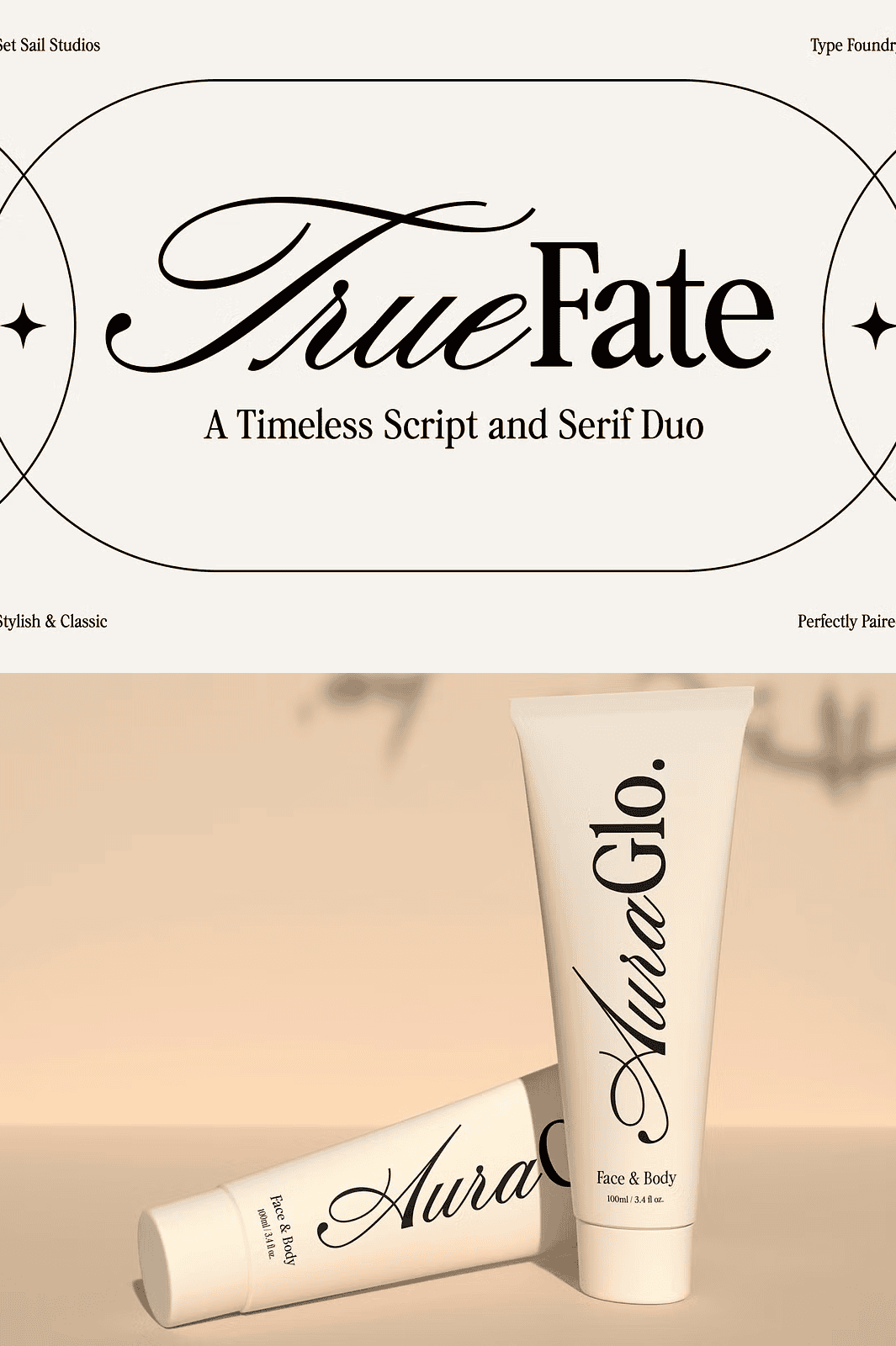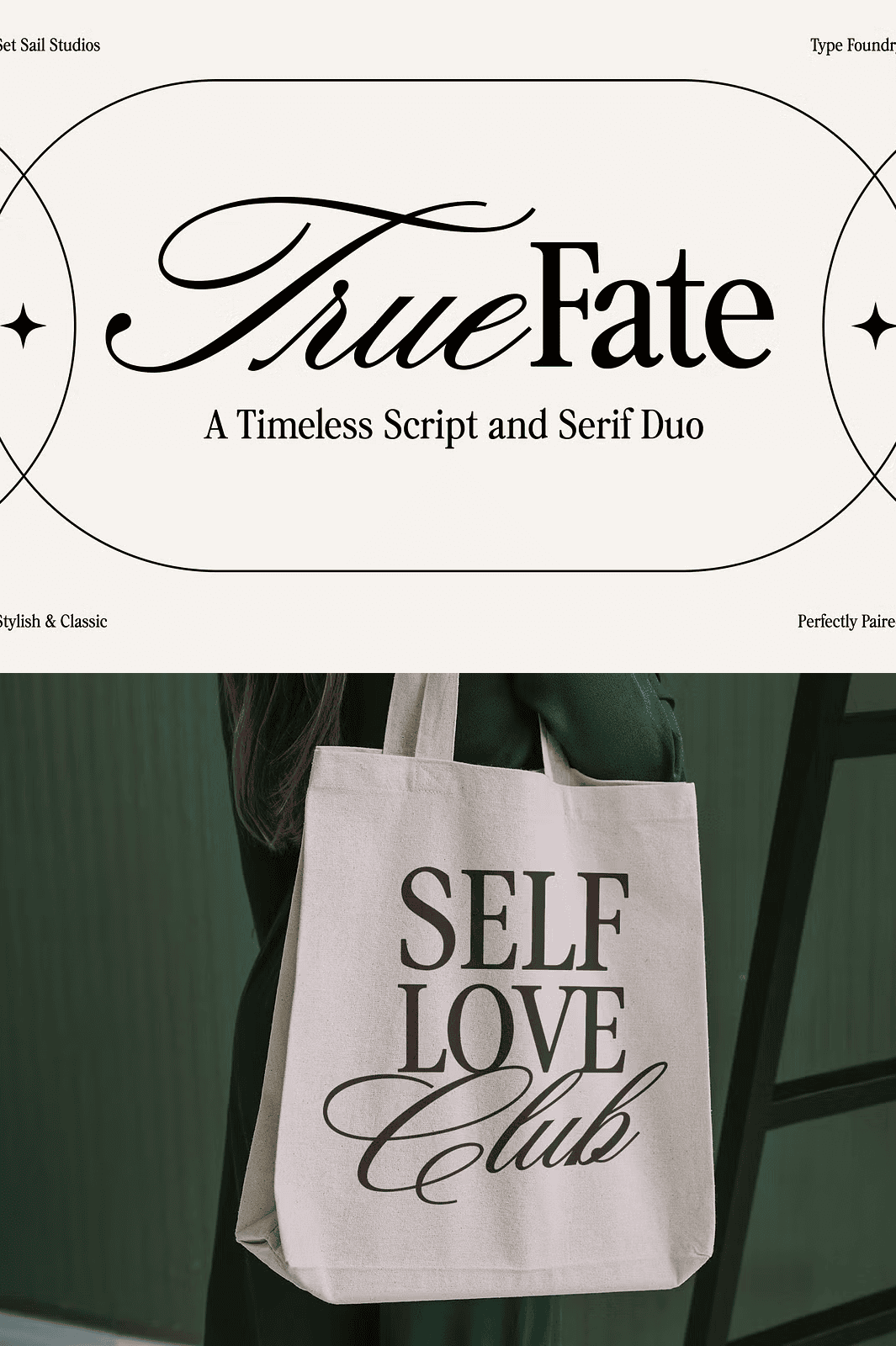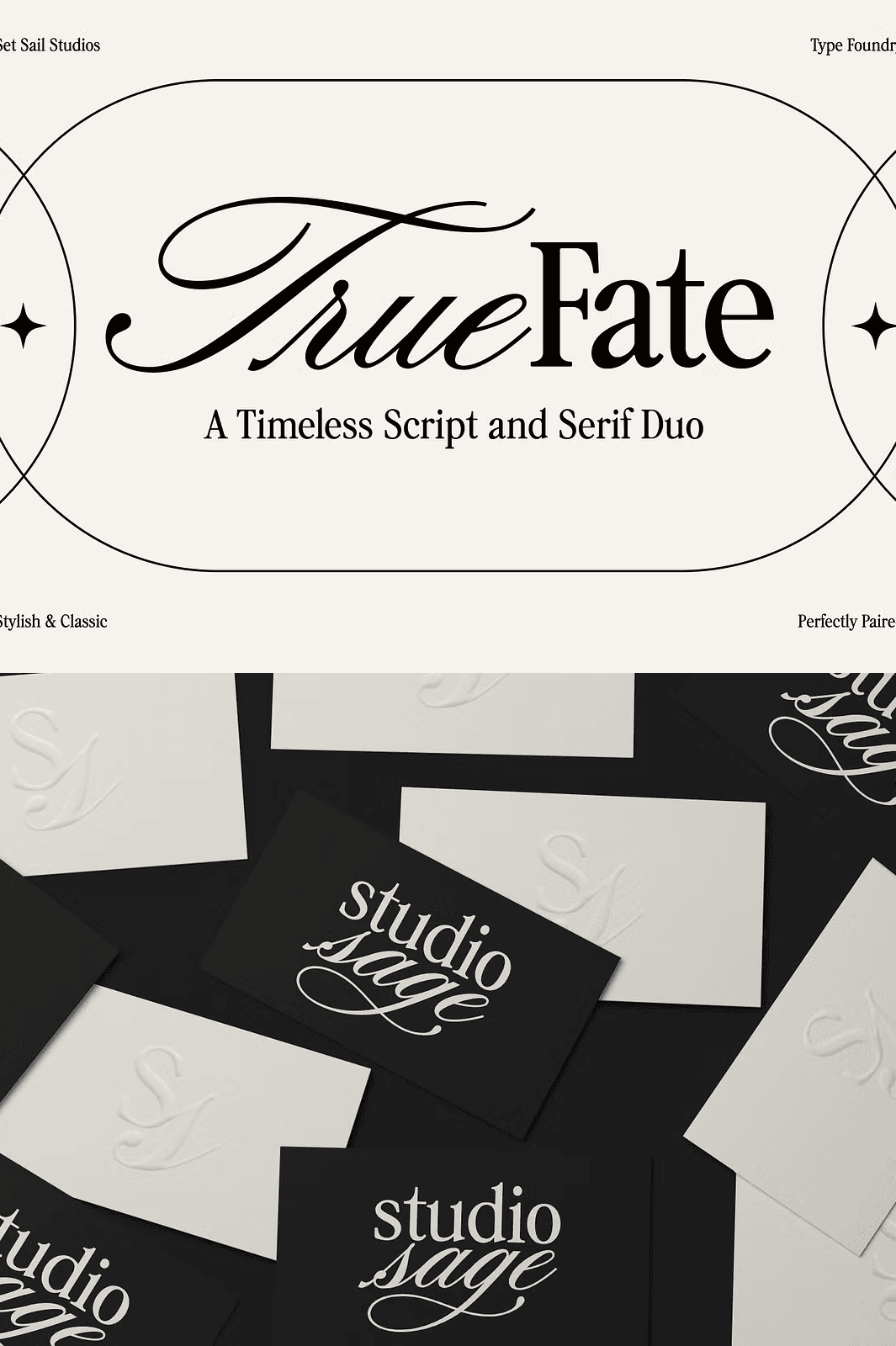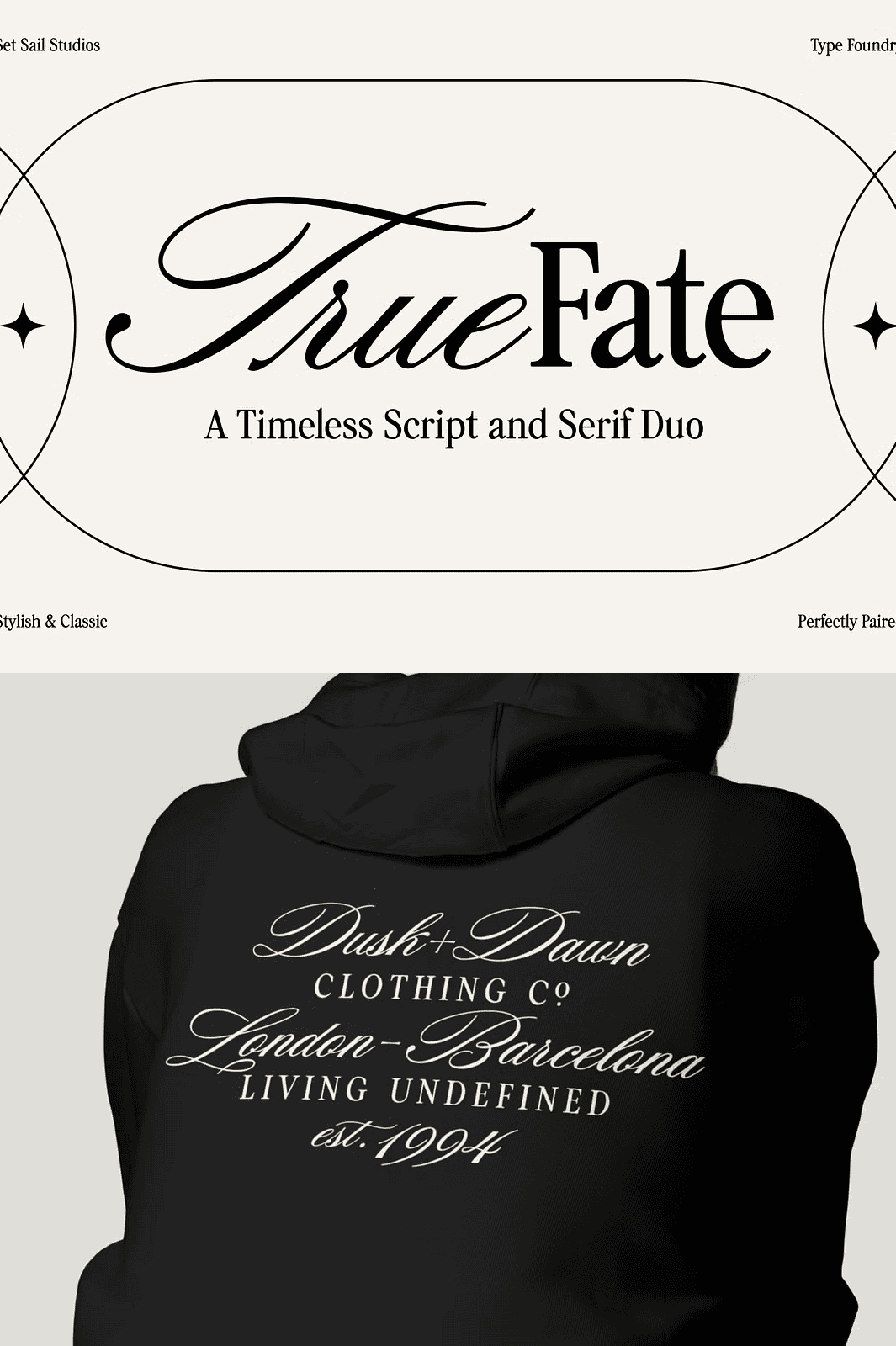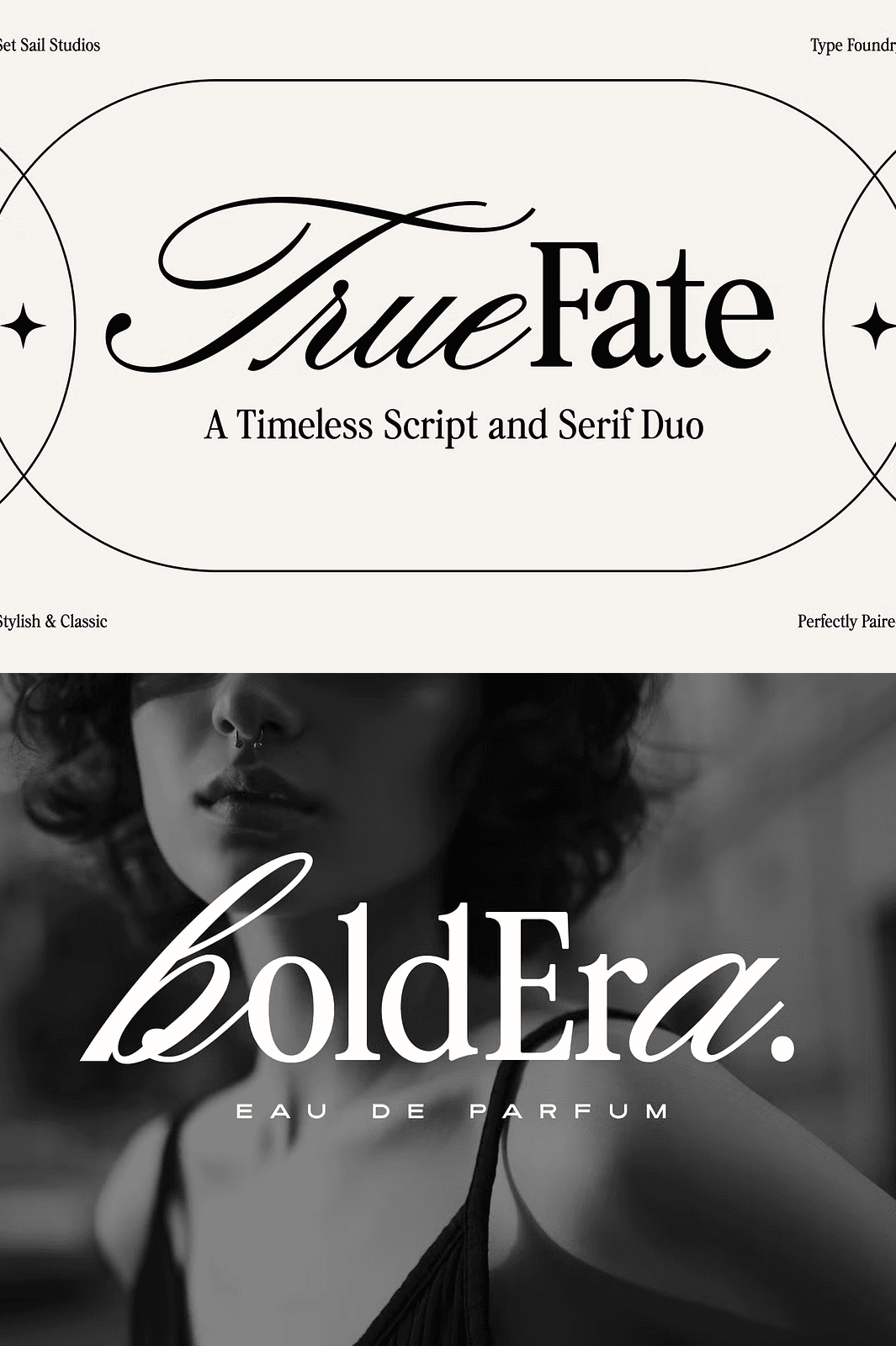
True Fate Script & Serif Font Duo
Elevate Your Projects with a Thoughtfully Balanced Font Pairing
Introducing **True Fate Font Duo** a deliberate, harmonious fusion of **True Fate Script** and **True Fate Serif**, engineered for maximum impact across branding, print, digital campaigns, and editorial design. No more hunting for compatible fonts. This duo was built from the ground up to work in perfect synchrony blending the fluid grace of hand-drawn calligraphy with the enduring strength of classic serif typography.
This isn’t just a font pair. It’s a design system. Each font stands strong on its own, yet when combined, they create visual rhythm, contrast, and sophistication that elevate your work from ordinary to exceptional.
True Fate Script — Where Tradition Meets Modern Elegance
True Fate Script draws inspiration from traditional roundhand calligraphy, reimagined for contemporary design needs. Its delicate curves and flowing strokes deliver a clean, refined cursive that is both fluid and professional. The subtle flourishes add flair without overpowering perfect for logo accents, title treatments, wedding stationery, and premium brand messaging.
Key features include:
– ✦ Full uppercase and lowercase character sets with natural ligature flow
– ✦ Contextual alternates for improved spacing and rhythm
– ✦ OpenType support for advanced typographic control
Use it to create headlines that breathe confidence, invitations that whisper luxury, and branding that feels effortlessly authentic.
True Fate Serif — A Classic Reimagined for Modern Projects
True Fate Serif captures the soul of nostalgic headline fonts bold, timeless, and authoritative while being refined for today’s design demands. With strong vertical emphasis, elegant serifs, and balanced proportions, this font commands attention without shouting.
It’s ideal for:
– ✦ Headlines and mastheads in newspapers, magazines, and digital publications
– ✦ Brand identities requiring historical gravitas with modern readability
– ✦ Packaging design for artisanal, beverage, or heritage brands
– ✦ Print materials where impact and clarity are essential
Its versatility ensures it performs beautifully in both large-scale signage and tight editorial layouts.
Seamless Collaboration: Scripts and Serifs That Speak the Same Language
The true power of True Fate lies in how seamlessly the two fonts interact. Use True Fate Script for your headline or slogan, then pair it with True Fate Serif for supporting copy or subheadings. The matching stroke weights, x-heights, and visual rhythm ensure they never clash only complement.
For example:
– ✦ **Logos:** Use the script for your brand name and the serif for taglines
– ✦ **Invitations:** Script for “You’re Invited,” serif for “Saturday, June 15th, 2026”
– ✦ **Social Media Posts:** Script for the quote, serif for the date and location
– ✦ **Presentation Titles:** Script for the main title, serif for the subtitle
The synergy is instant. The results, stunning.
International Reach with Full Language Compatibility
Designed for global creators, True Fate Font Duo supports **26 languages**, including:
English, French, Italian, Spanish, Portuguese, German, Swedish, Norwegian, Danish, Dutch, Finnish, Indonesian, Malay, Hungarian, Polish, Croatian, Turkish, Romanian, Czech, Latvian, Lithuanian, Slovak, Slovenian, and more.
All characters are optimized for clarity across devices and print outputs. Whether you’re designing for a French boutique or a Brazilian lifestyle brand, True Fate delivers professional results anywhere.
– Never use more than two fonts from the duo in a single layout maintain visual balance
– Use subtle color contrasts (e.g., deep navy + cream) to highlight the font’s elegance
– Apply light tracking (kerning) to improve rhythm and spacing in longer blocks